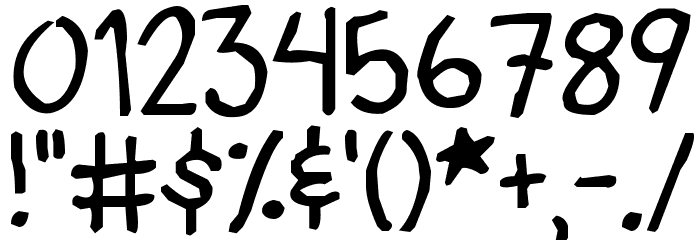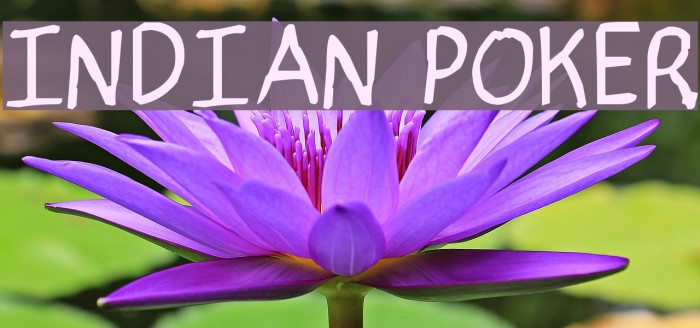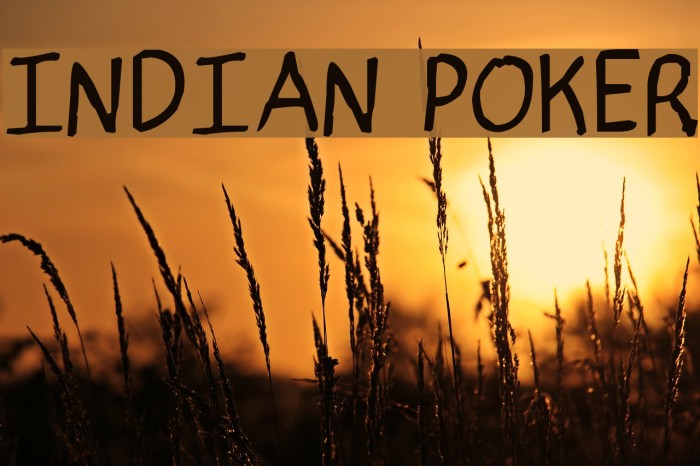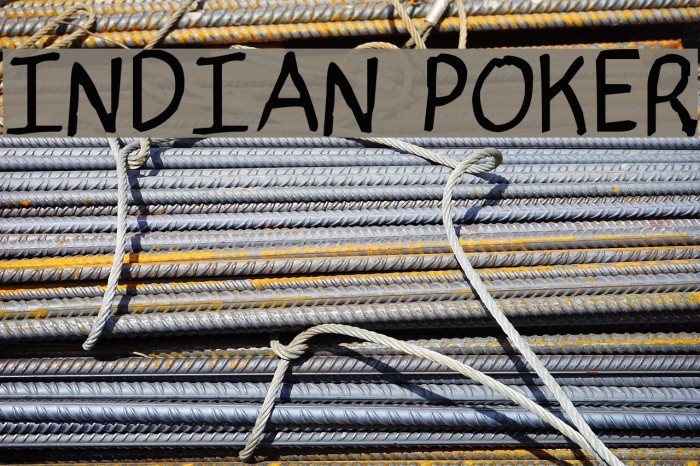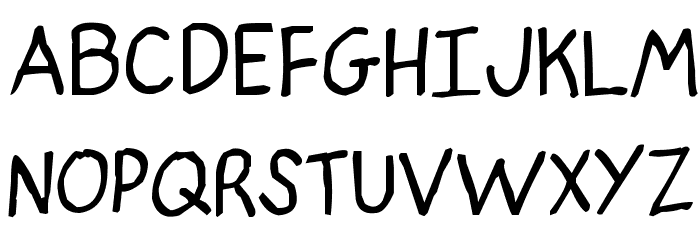
indian poker. Font
This font features a playful and informal handwritten style, characterized by its uneven strokes and casual appearance. The letters are slightly slanted, giving them a dynamic and lively feel. The uppercase and lowercase letters maintain a consistent style, with rounded edges and a somewhat irregular baseline, enhancing the handwritten effect. The numbers and special characters follow the same playful design, making them suitable for creative and informal contexts. The overall look is approachable and friendly, ideal for projects that require a personal touch.
A playful, handwritten font with a casual and dynamic style.
• Proposed Projects: Ideal for greeting cards, children's books, casual invitations, and playful branding.
• Category: Handwritten
• Overall Style: Casual
• Use Case: Headlines, Informal text, Creative projects